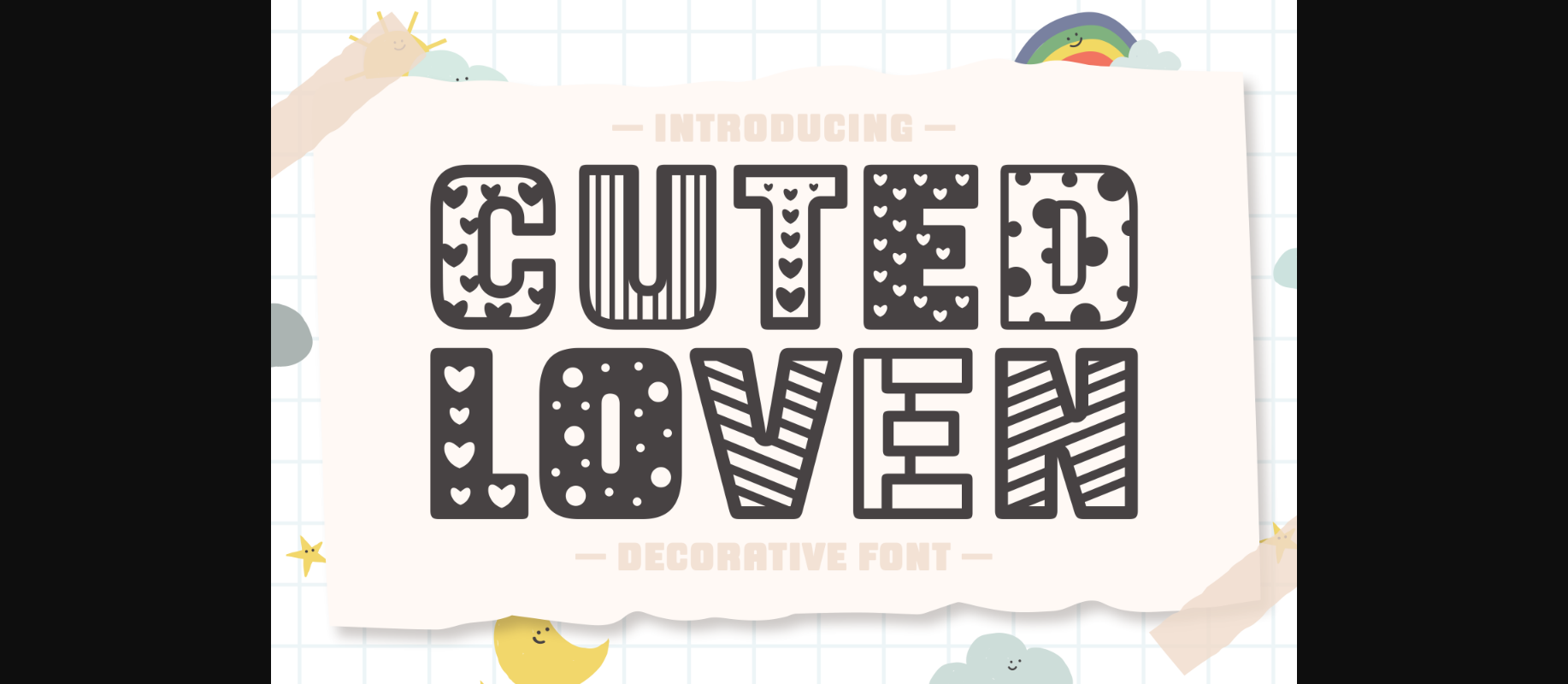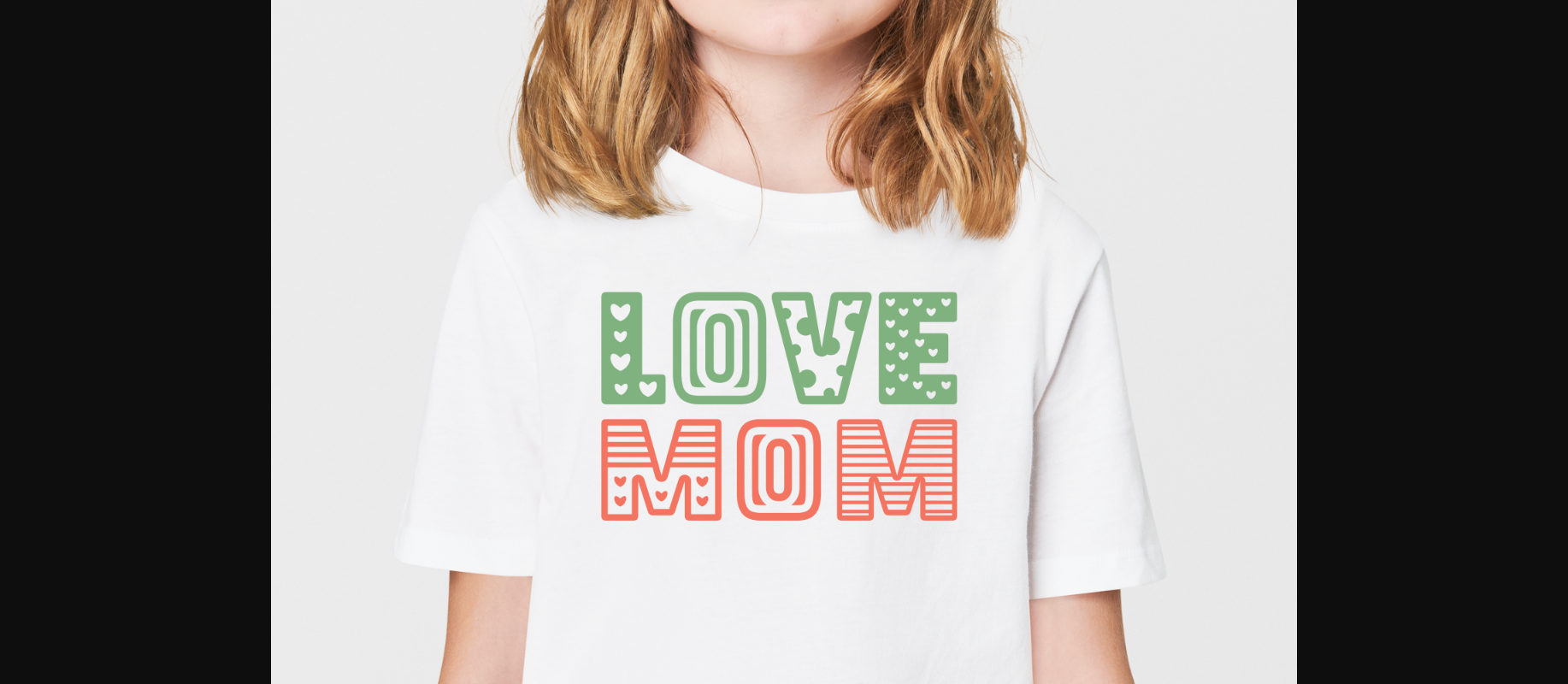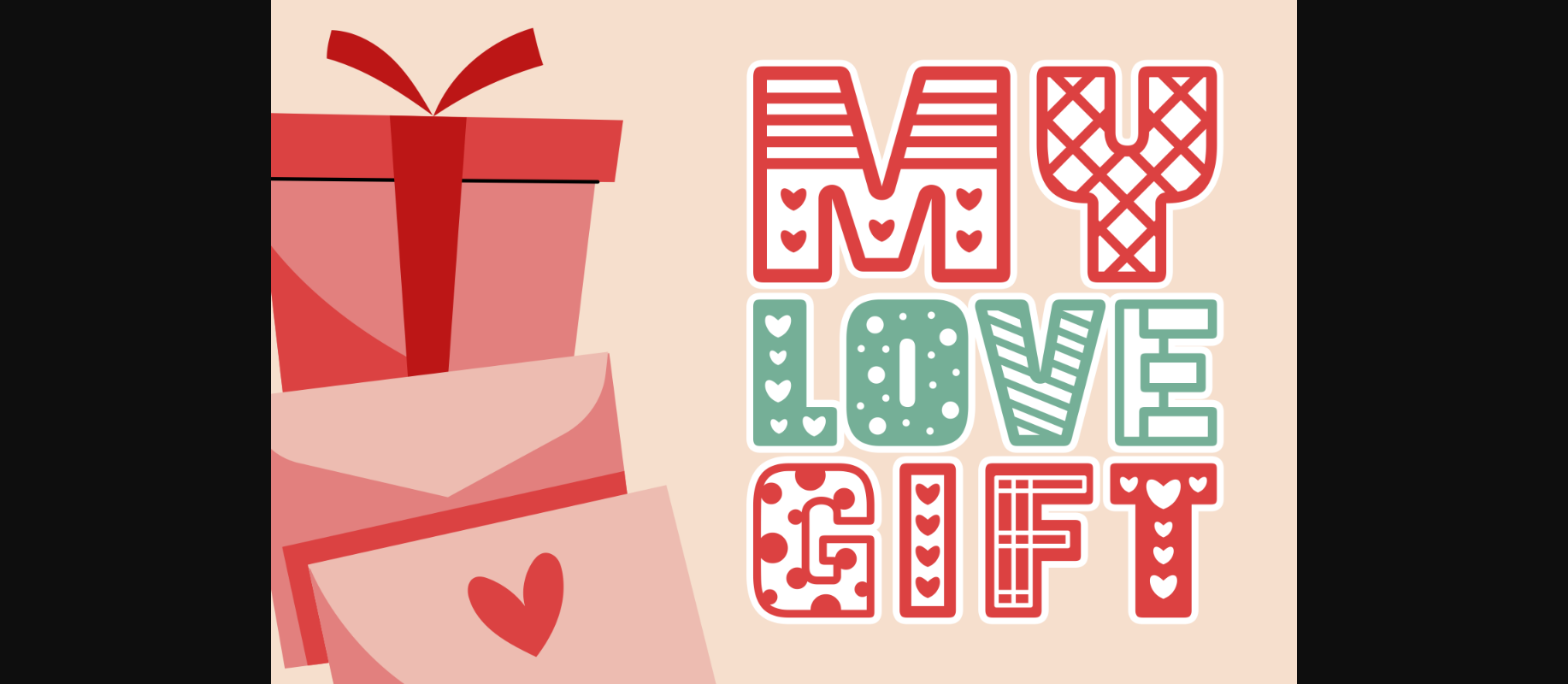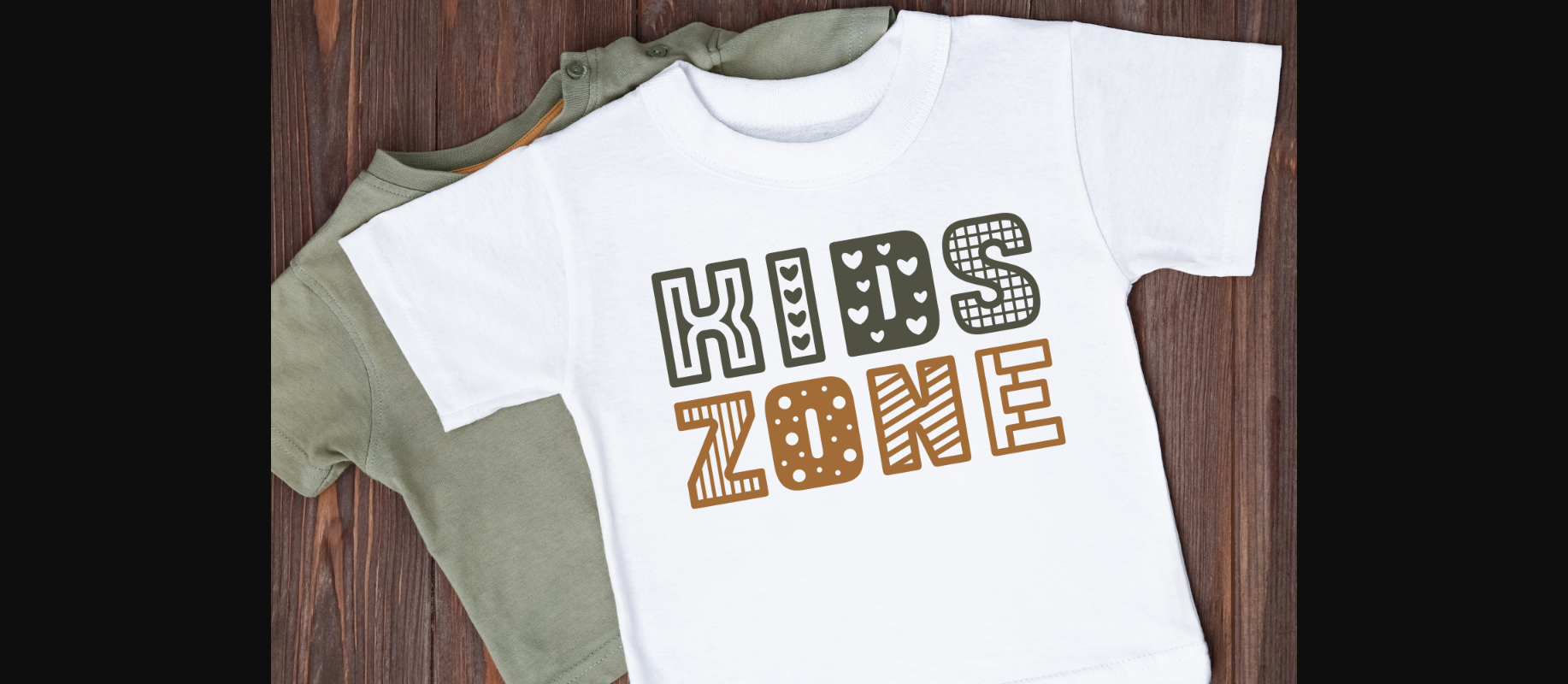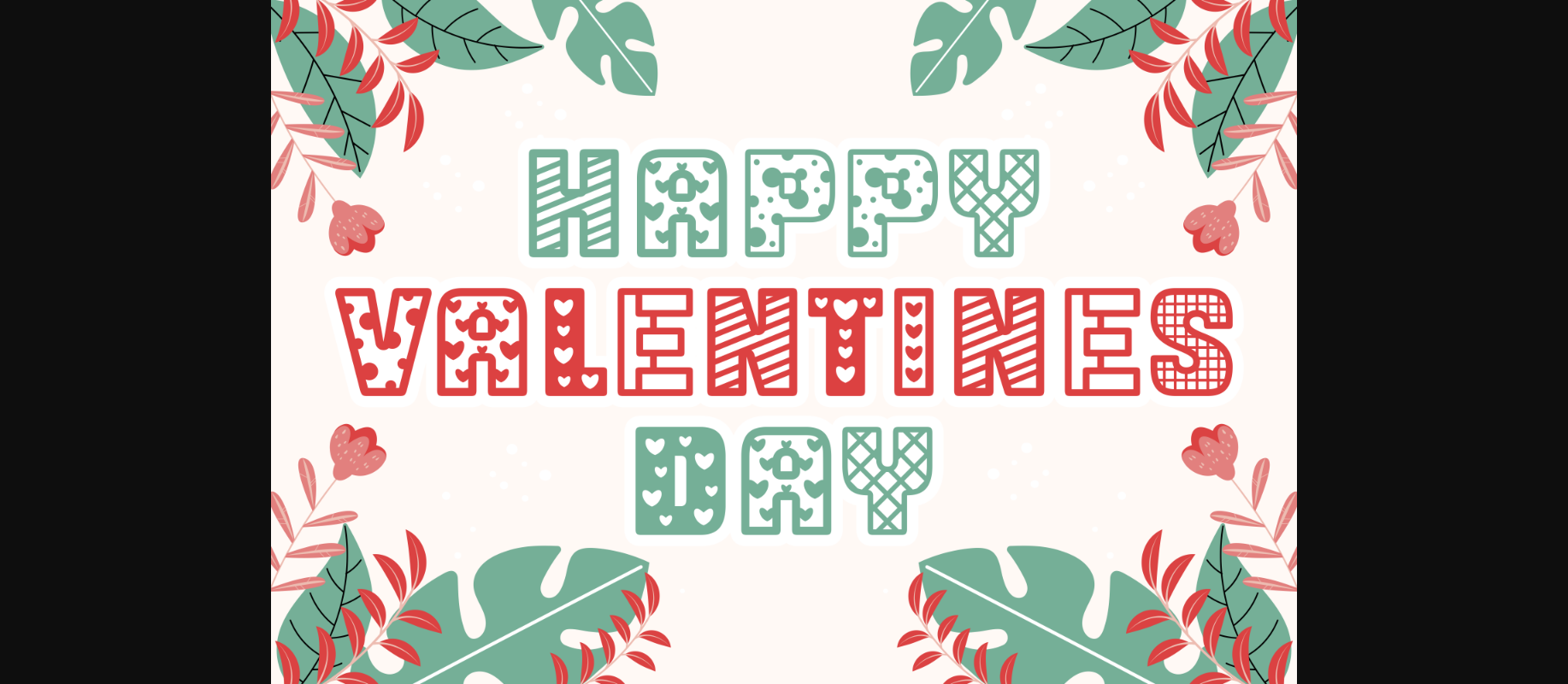
Cuted Loven Font
About Cuted Loven Font
Cuted Loven is an incredibly cool and unique decorative font. This modern vibe can easily apply to your favorite designs.